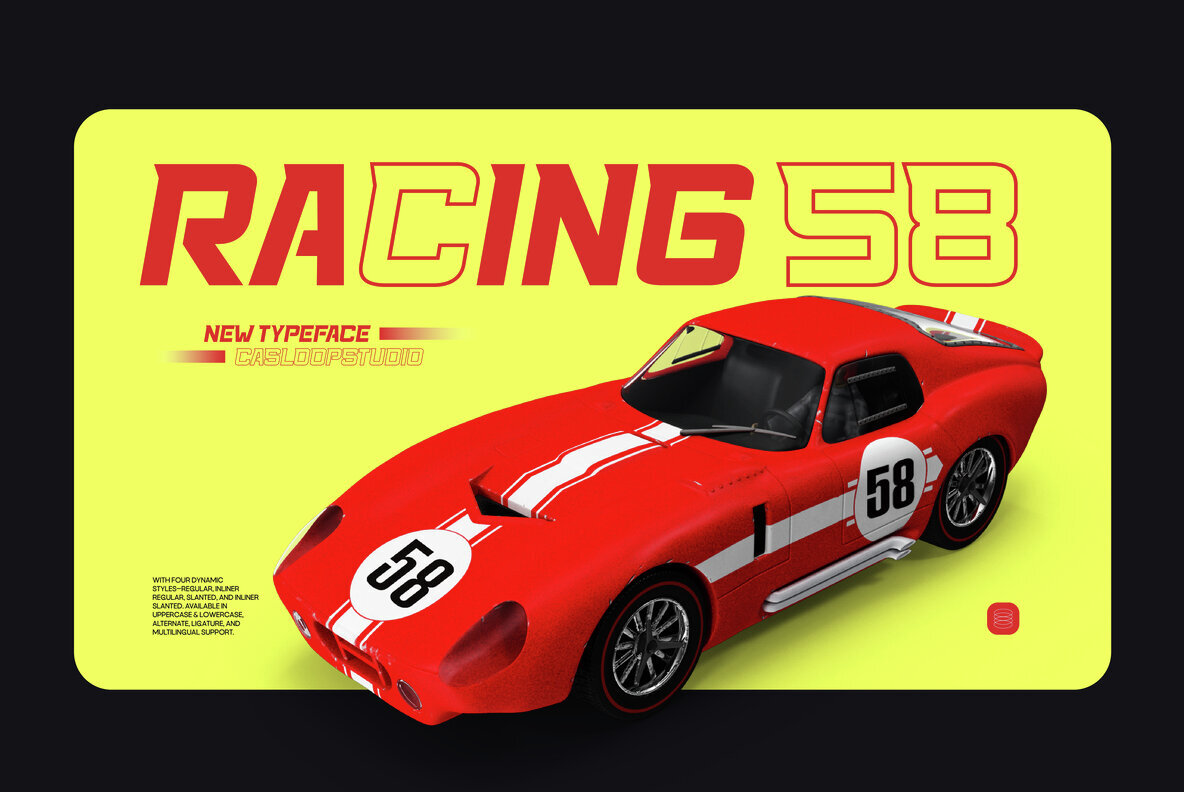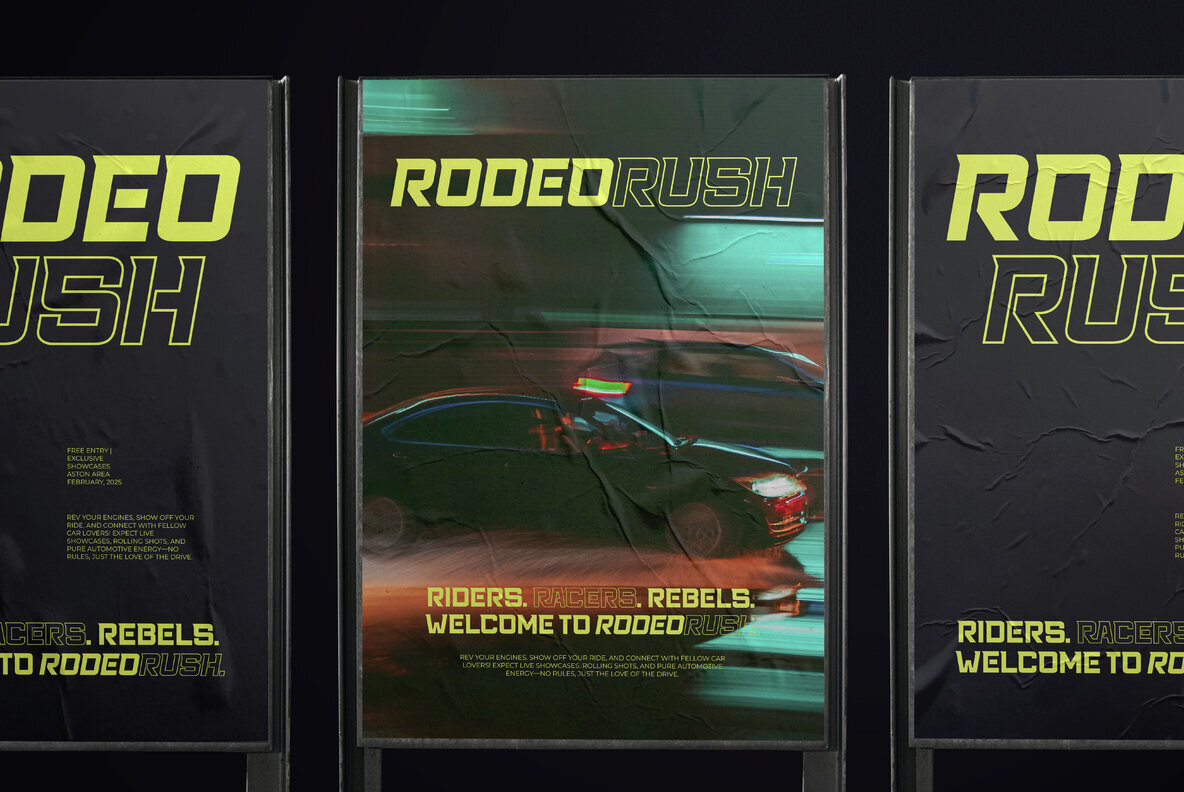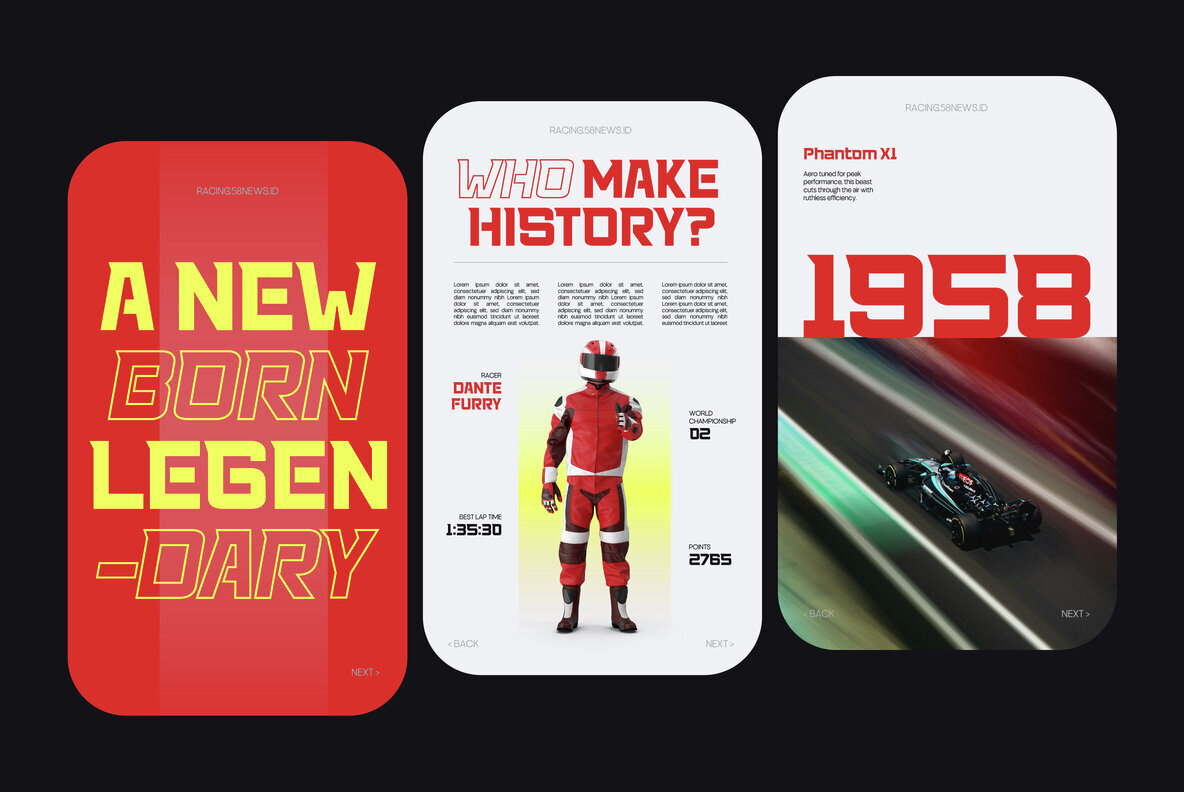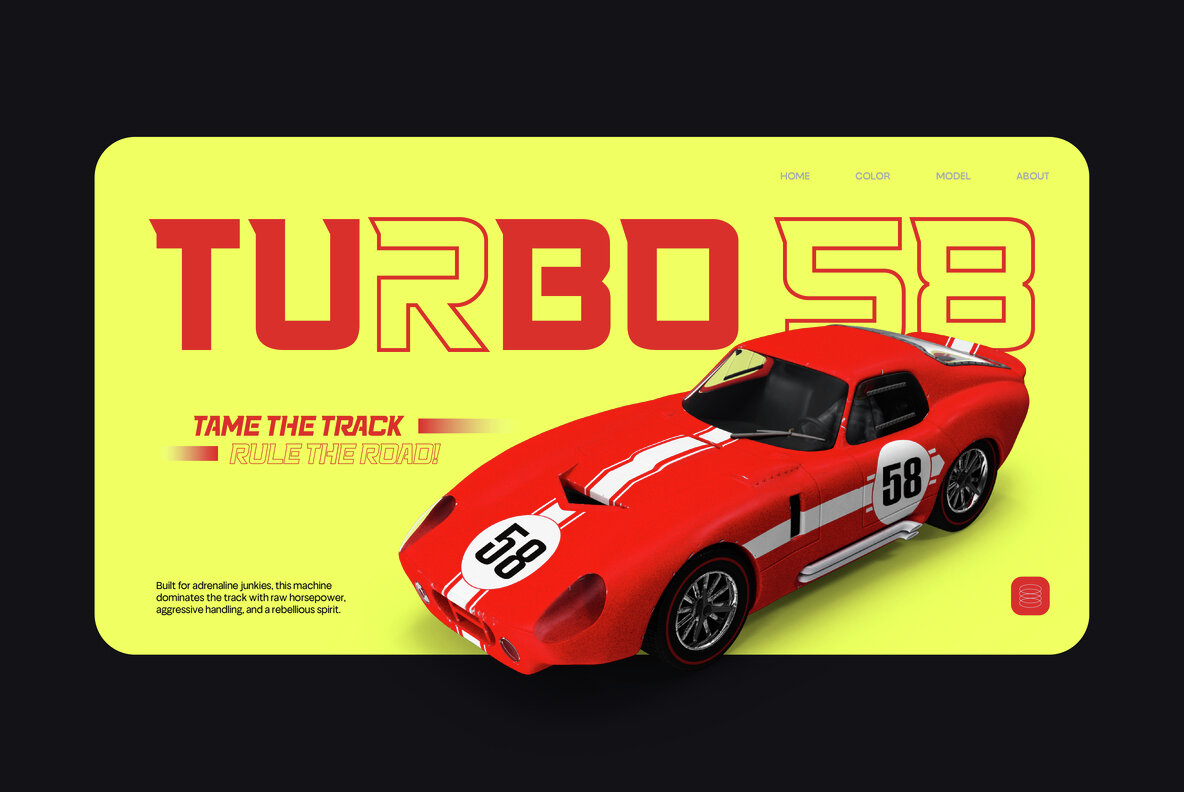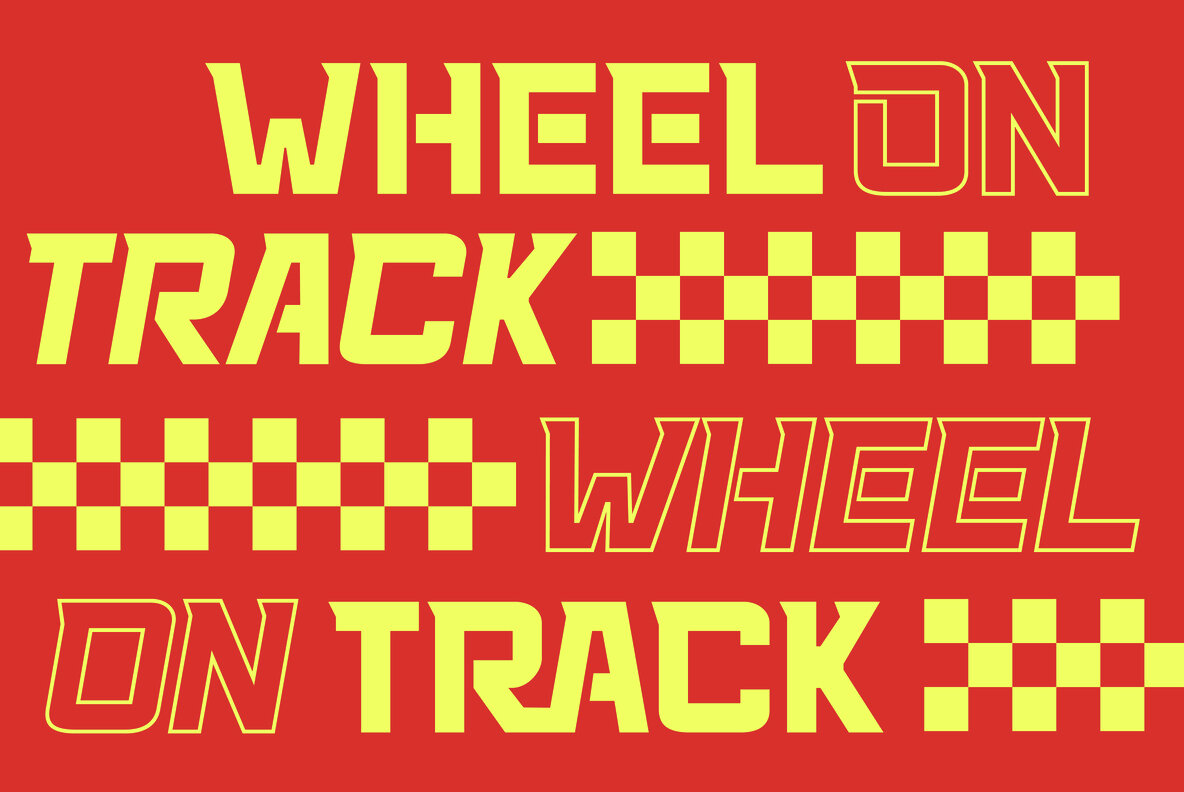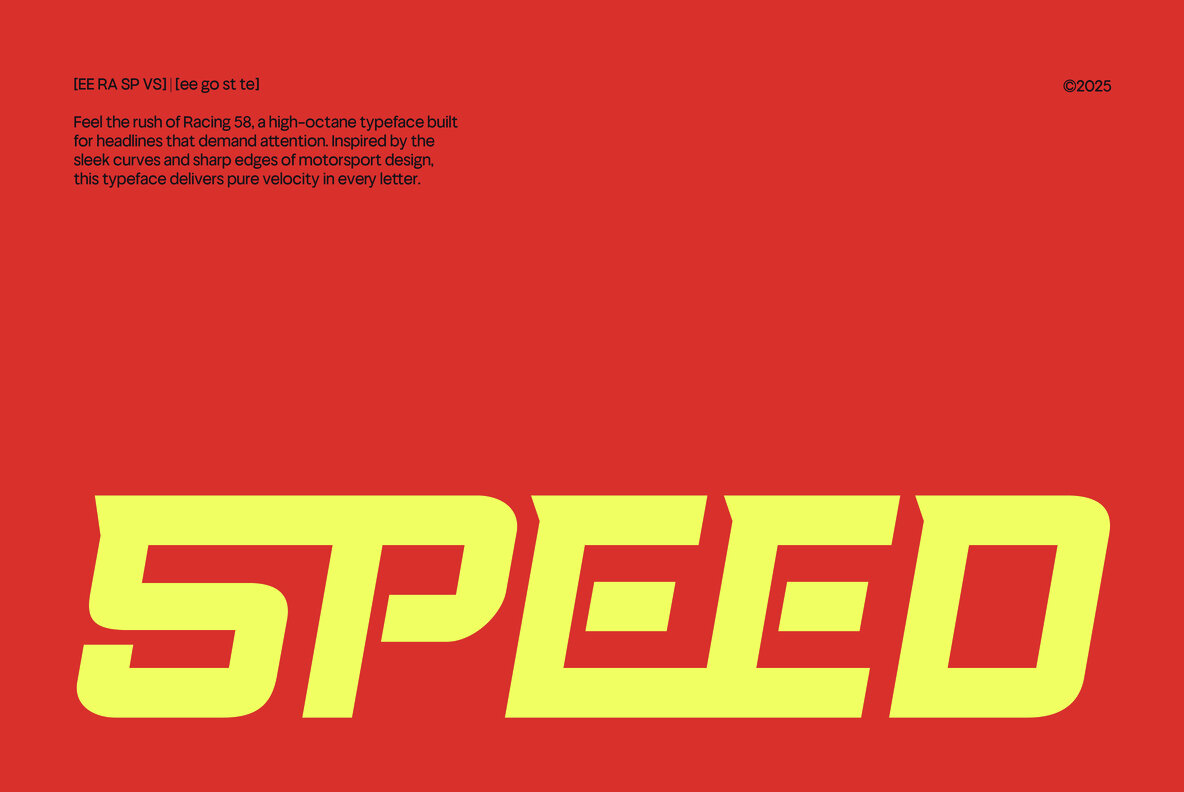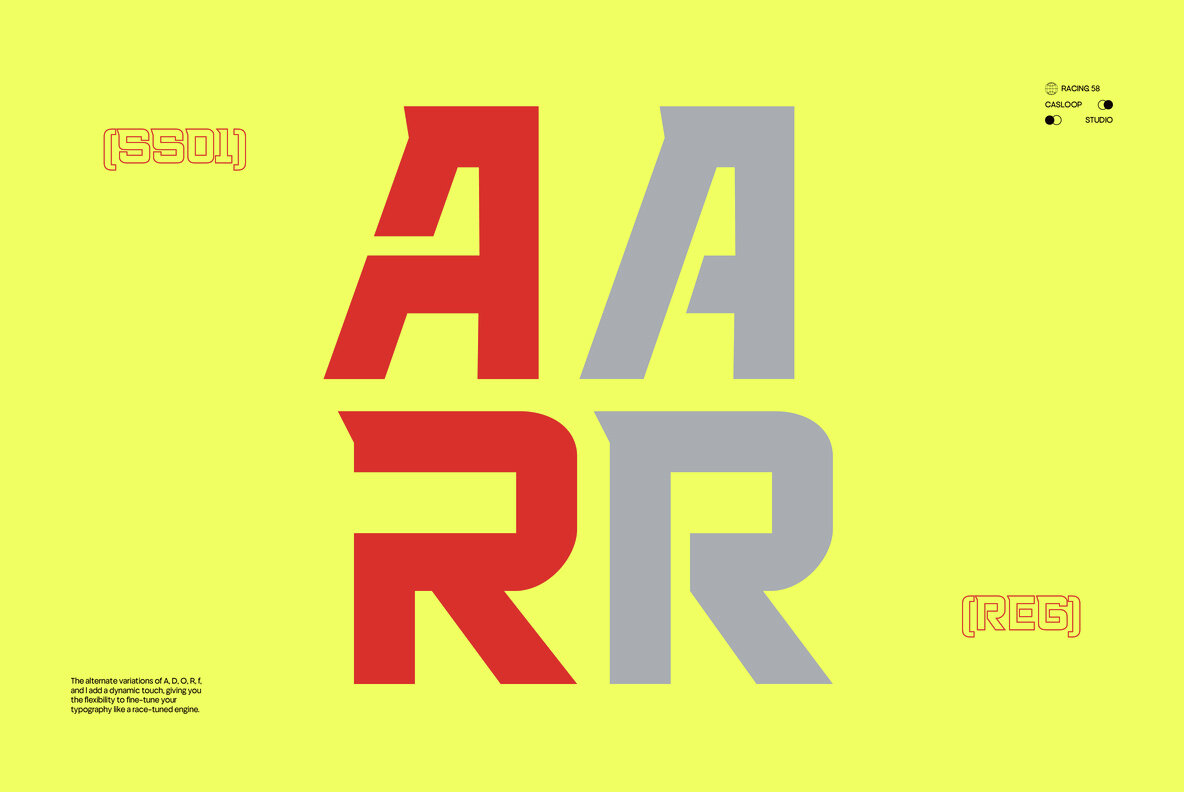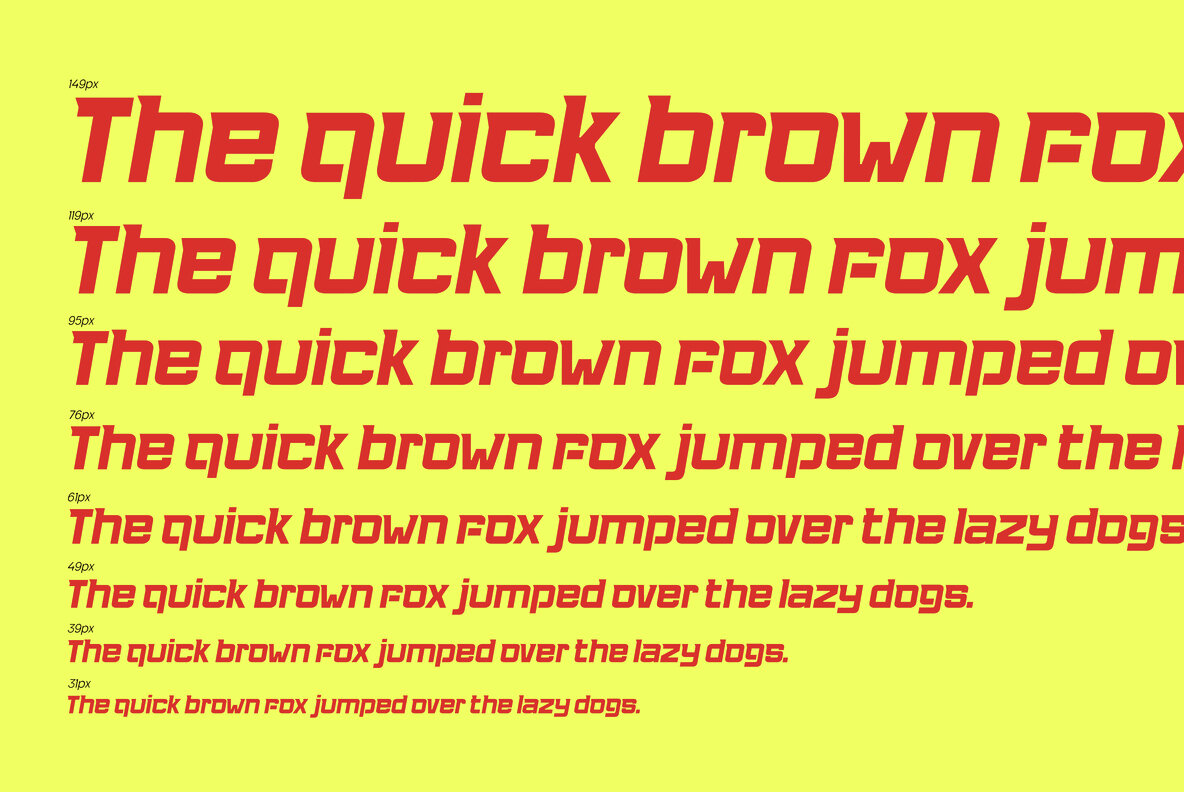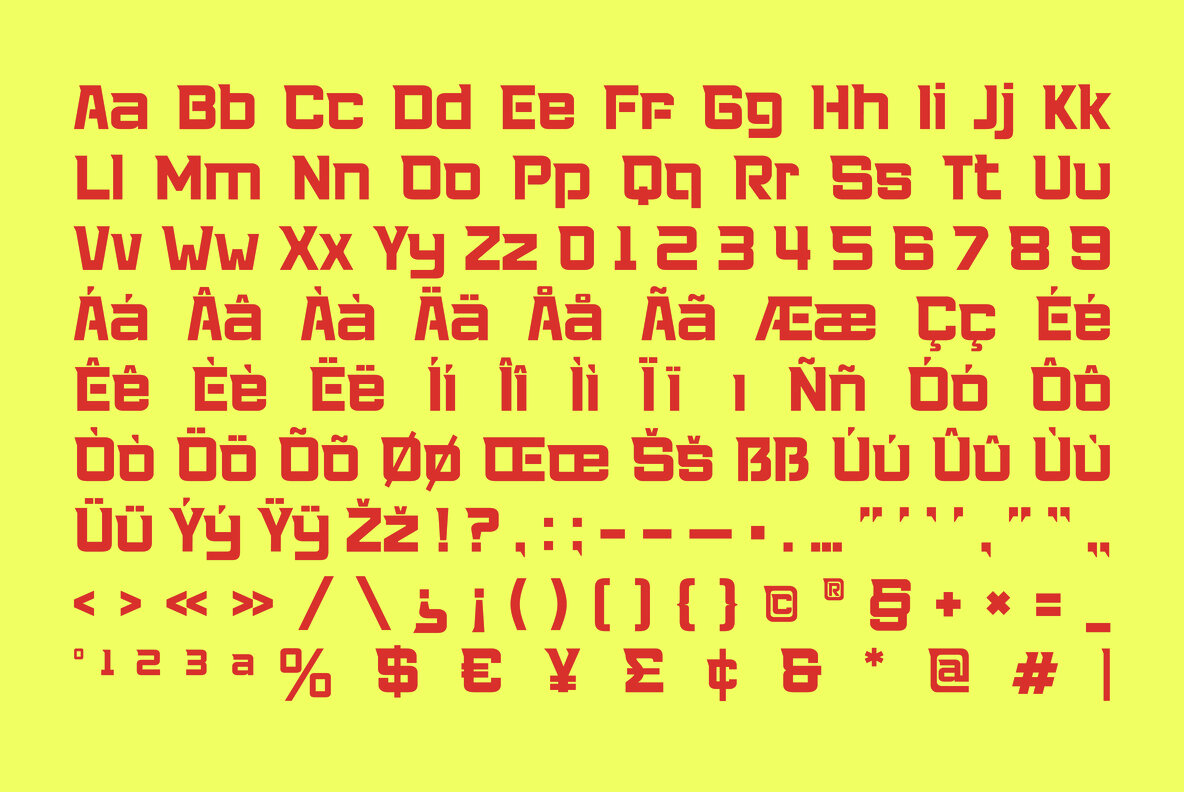
Racing 58 Font
Racing 58 Regular
Racing 58 Regular Inliner
Racing 58 Slanted
Racing 58 Slanted Inliner
Rev up your designs with Racing 58, the typeface crafted for speed and power. Inspired by the dynamic world of motorsports, it features slanted, aggressive shapes and aerodynamic letterforms. This high-speed aesthetic commands attention in every context. Perfect for race-day branding, adrenaline-fueled posters, or performance-driven visuals, Racing 58 ensures your message stands out in style. With each curve finely tuned for maximum impact, it is ideal for both the track and the digital landscape, bringing the excitement of speed to life.Racing 58 Typeface